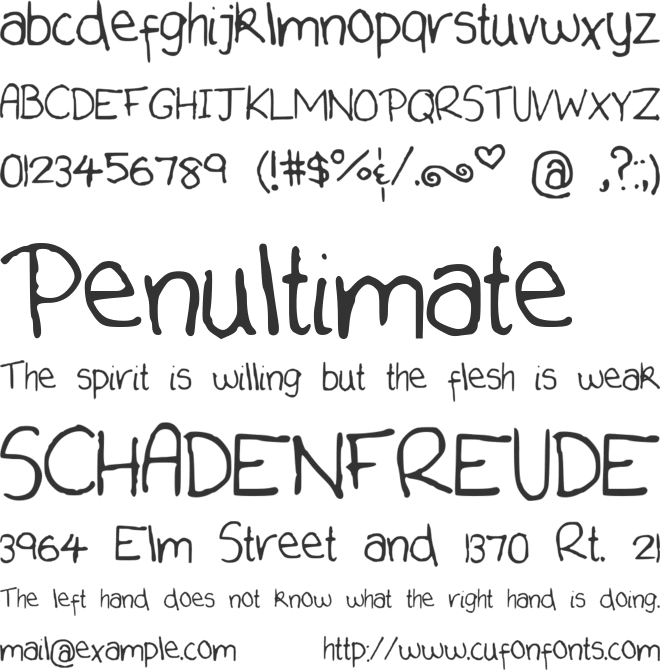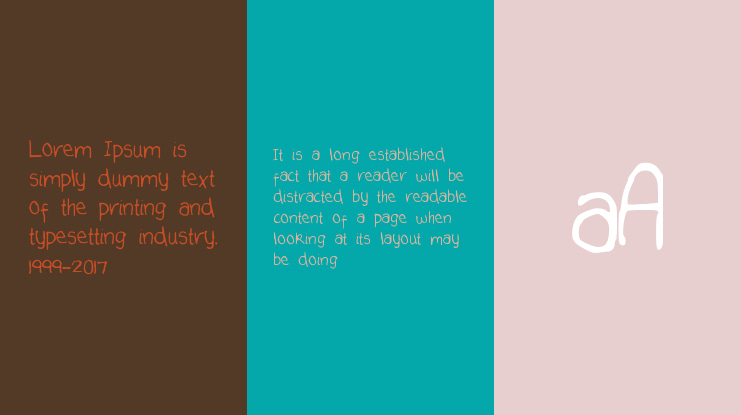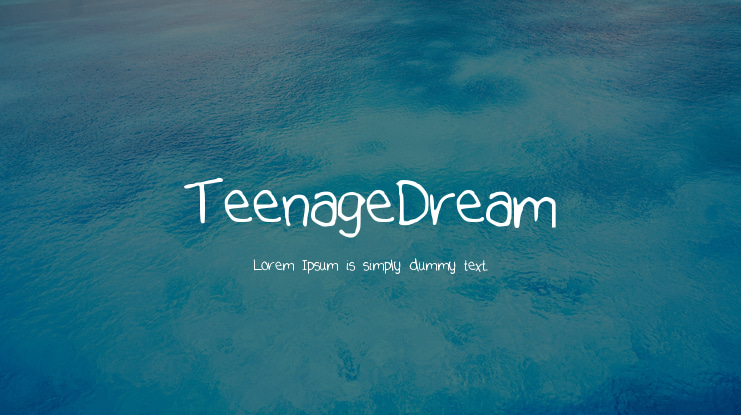
TeenageDream Font
This is a cute font for all ages. Plz no commercial use ,thankyou. Feel free to comment and please rate and like! You will also find cute symbols in the symbols section. P.S There will be a massive amount of fonts uploaded within the next few day.